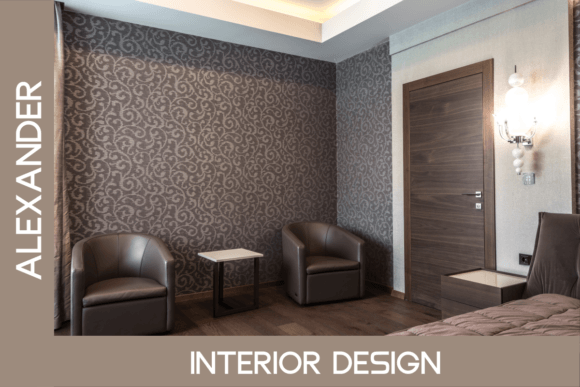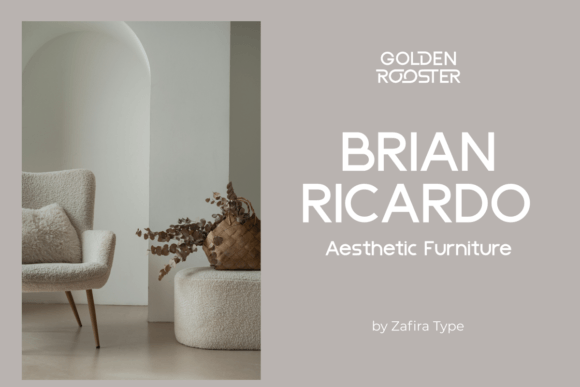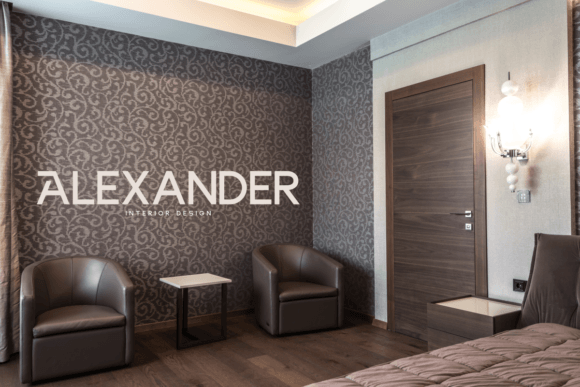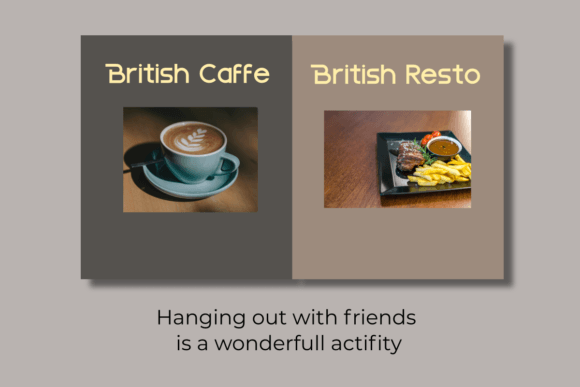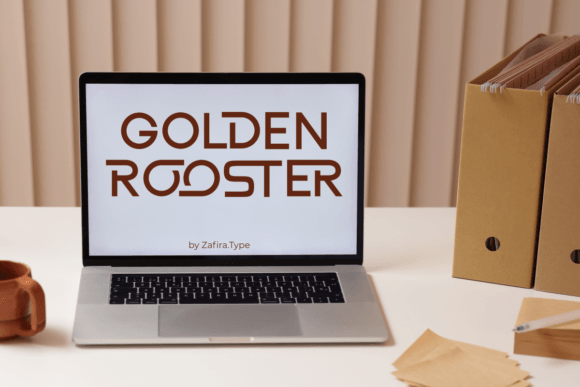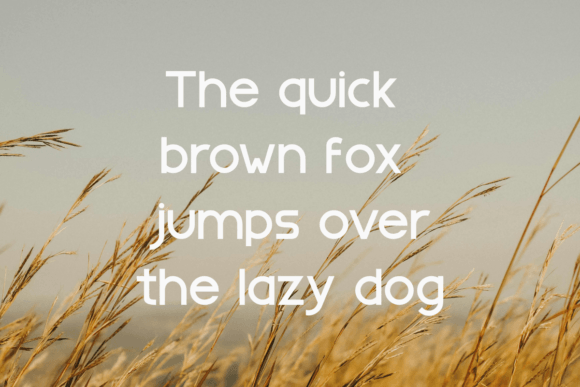
Introducing the Golden Rooster Font: Elevate Your Designs with Elegance and Sophistication
Are you a designer or crafter looking for a font that exudes elegance and sophistication? Look no further than the Golden Rooster Font. This stunning sans serif font is perfect for adding a touch of vintage charm to your designs, making it ideal for a wide range of applications, from logo creation and branding to typography design, badge design, and more.
What Makes Golden Rooster Font So Special?
Golden Rooster is an elegant and smooth sans serif font that boasts a unique and refined aesthetic. Its clean lines, subtle curves, and expertly crafted letterforms make it a joy to use in a variety of design contexts. Whether you’re creating a logo for a luxury brand, designing an invitation for a special event, or crafting a typography design for a high-end product, Golden Rooster is the perfect choice.
Key Features of Golden Rooster Font
- Elegant and Smooth Design: Golden Rooster’s sans serif design is both modern and timeless, making it perfect for designs that require a touch of sophistication.
- Vintage Taste: Golden Rooster has a distinct vintage charm that makes it perfect for designs that require a touch of nostalgia or classic elegance.
- Versatile: This font is suitable for a wide range of applications, including logo creation, branding, typography design, badge design, product packaging, invitations, quotes, t-shirt design, label posters, and more.
Use Cases for Golden Rooster Font
Golden Rooster is a versatile font that can be used in a variety of design contexts. Here are some examples of how you can use this stunning font:
- Logo Design and Branding: Create a luxurious and sophisticated logo for your brand with Golden Rooster. Its elegant design makes it perfect for high-end brands that require a refined aesthetic.
- Typography Design: Use Golden Rooster to create stunning typography designs that showcase your creativity and skill. Its smooth lines and elegant curves make it perfect for designs that require a touch of sophistication.
- Badge Design: Create custom badges for special events or occasions with Golden Rooster. Its vintage charm and elegant design make it perfect for creating unique and eye-catching badges.
- Product Packaging: Add a touch of elegance to your product packaging with Golden Rooster. Its sophisticated design makes it perfect for high-end products that require a refined aesthetic.
- Invitations and Quotes: Create beautiful invitations and quotes with Golden Rooster. Its elegant design and vintage charm make it perfect for special occasions and events.
- T-Shirt Design: Use Golden Rooster to create stunning t-shirt designs that showcase your creativity and style. Its smooth lines and elegant curves make it perfect for designs that require a touch of sophistication.
Why Choose Golden Rooster Font?
There are many fonts available that claim to offer elegance and sophistication, but Golden Rooster stands out from the crowd. Here are some reasons why you should choose Golden Rooster for your next design project:
- Unique Design: Golden Rooster has a unique and refined aesthetic that sets it apart from other fonts. Its elegant design and vintage charm make it perfect for designs that require a touch of sophistication.
- High-Quality: This font is crafted with precision and attention to detail, ensuring that it meets the highest standards of quality.
- Easy to Use: Golden Rooster is PUA encoded, making it easy to access all of the amazing glyphs and ligatures.
- Versatile: This font is suitable for a wide range of applications, making it a great addition to any designer’s toolkit.
In conclusion, Golden Rooster Font is a stunning sans serif font that offers elegance, sophistication, and versatility. Its unique design, high-quality craftsmanship, and ease of use make it perfect for a wide range of design applications. Whether you’re a designer or crafter, Golden Rooster is a great choice for your next project.